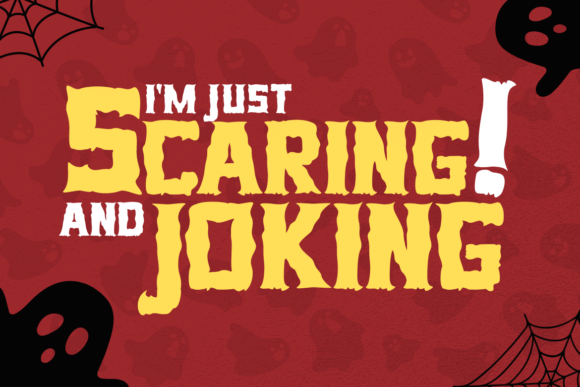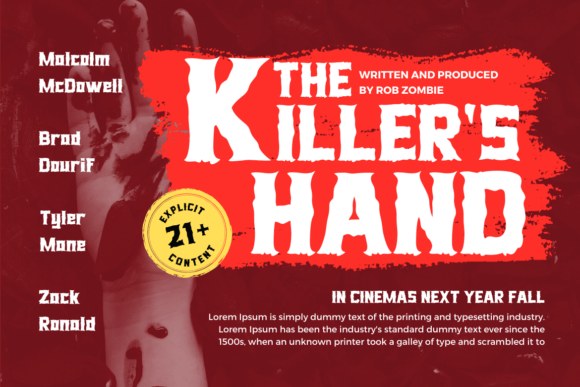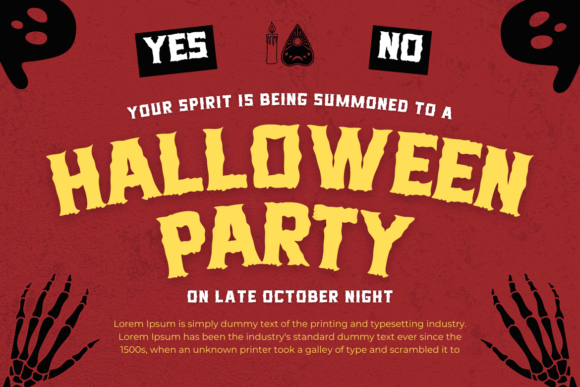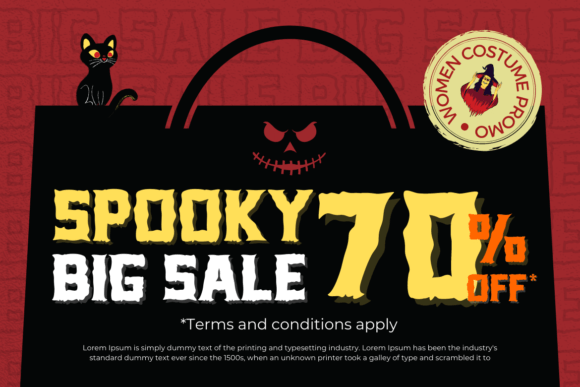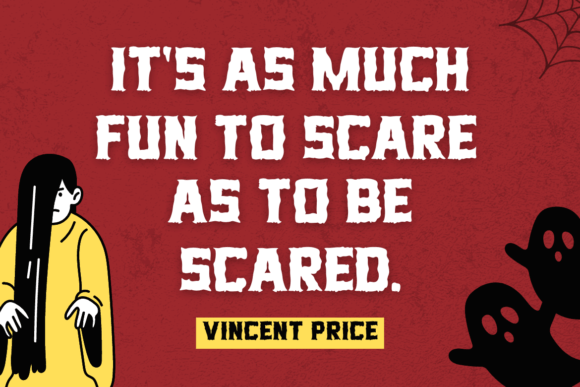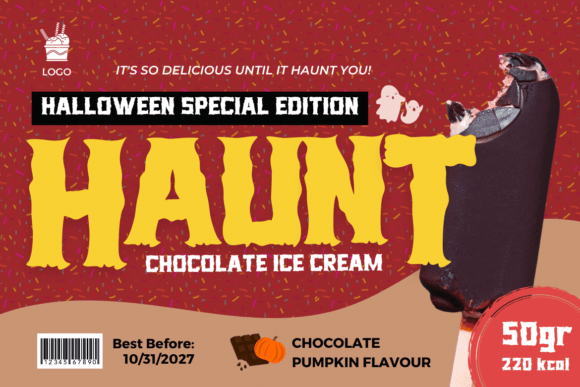
Haweni Font: The Ultimate Halloween Decoration for Designers and Crafters
Halloween has never been so much fun. You don’t need to go near a spooky house in the dead of night or deal with creepy creatures while you wait for trick-or-treaters to pass out candy. With the Haweni Font, it will be easy to get your Halloween party started without all that hard work!
What is Haweni Font?
The Haweni Font is a unique and creative digital font designed specifically for Halloween-themed projects. This font is perfect for designers, crafters, and DIY enthusiasts who want to add a spooky touch to their Halloween decorations, invitations, and party materials.
Key Features of Haweni Font
- Unique and Spooky Design: The Haweni Font features a distinctive and eerie design that is sure to capture the spirit of Halloween.
- High-Quality Design: The Haweni Font is designed with high-quality graphics, ensuring that it looks great on any device or medium.
- Customizable: With the Haweni Font, you can customize your Halloween designs to fit your personal style and theme.
Ideas for Using Haweni Font
The Haweni Font is versatile and can be used for a variety of Halloween-themed projects. Here are some ideas to get you started:
- Halloween Invitations: Create spooky and eye-catching invitations for your Halloween party using the Haweni Font.
- Party Decorations: Use the Haweni Font to create Halloween-themed decorations, such as banners, garlands, and signs.
- Craft Projects: Add a spooky touch to your craft projects, such as Halloween-themed cards, gift tags, and DIY decorations.
- Social Media Graphics: Create spooky and engaging social media graphics using the Haweni Font.
Tips and Tricks for Using Haweni Font
Here are some tips and tricks to help you get the most out of the Haweni Font:
- Experiment with Different Colors: Try out different colors and combinations to create a unique and eye-catching design.
- Mix and Match Fonts: Combine the Haweni Font with other fonts to create a unique and interesting design.
- Add Images and Graphics: Add images and graphics to your design to make it more engaging and spooky.